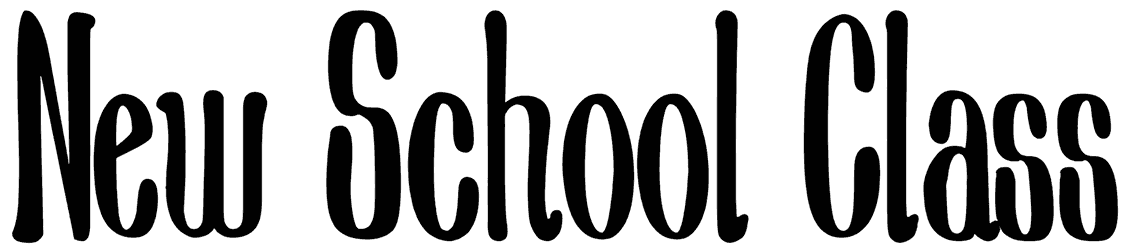
New School Class Font
New School Class is a classic font that opens a window to the old world. Despite its apparent simplicity, this old school font has a professional approach that can be a clean alternative to repetitive styles in logos, advertisements, movie posters, and packaging design.
The combination of old backgrounds with the theme of classic cities can make this a chosen font for brands that seek to convey seriousness in their projects.